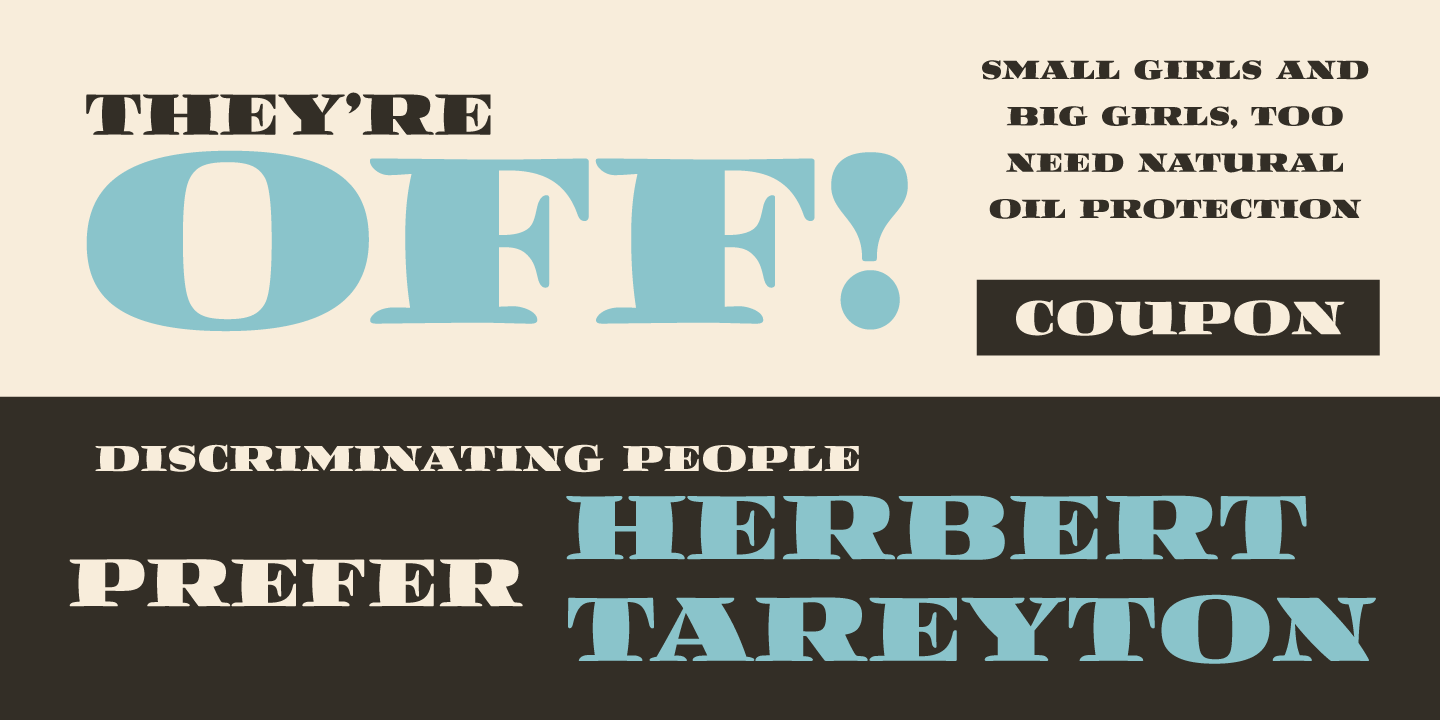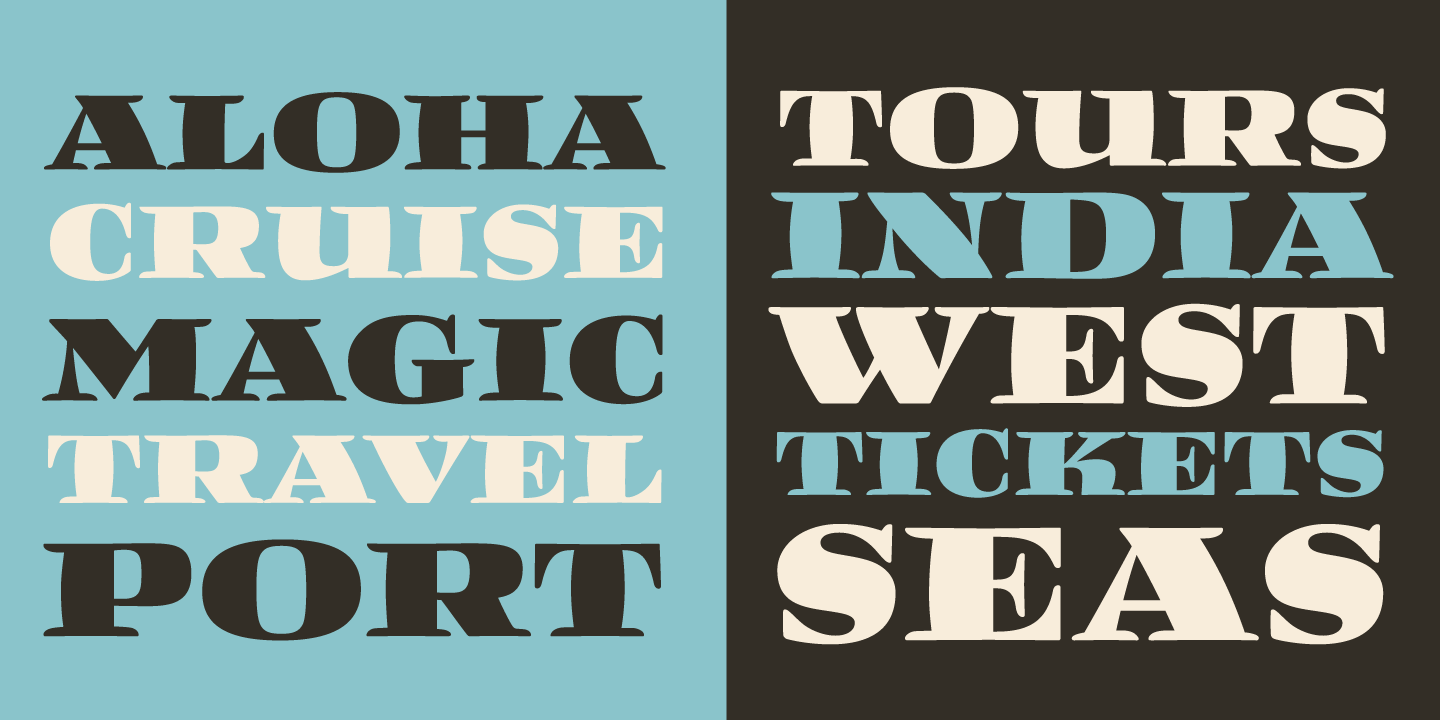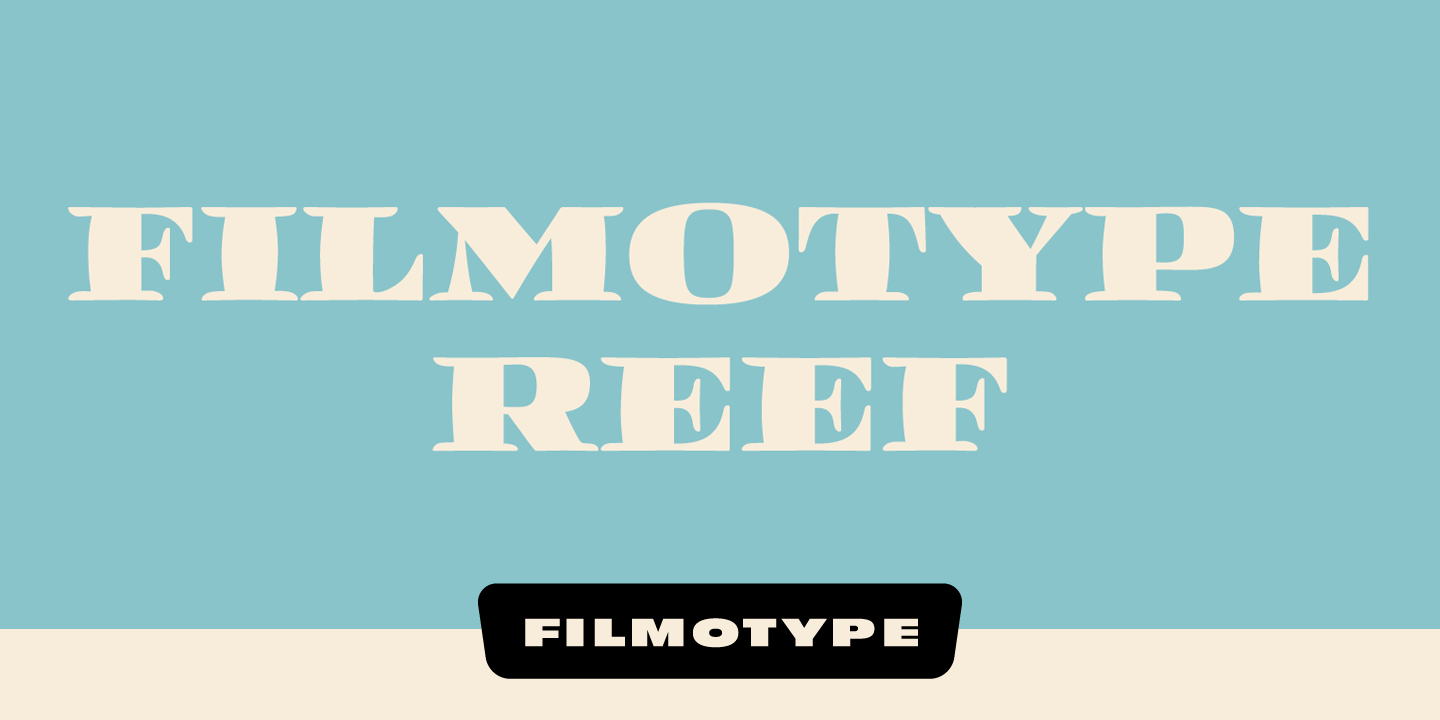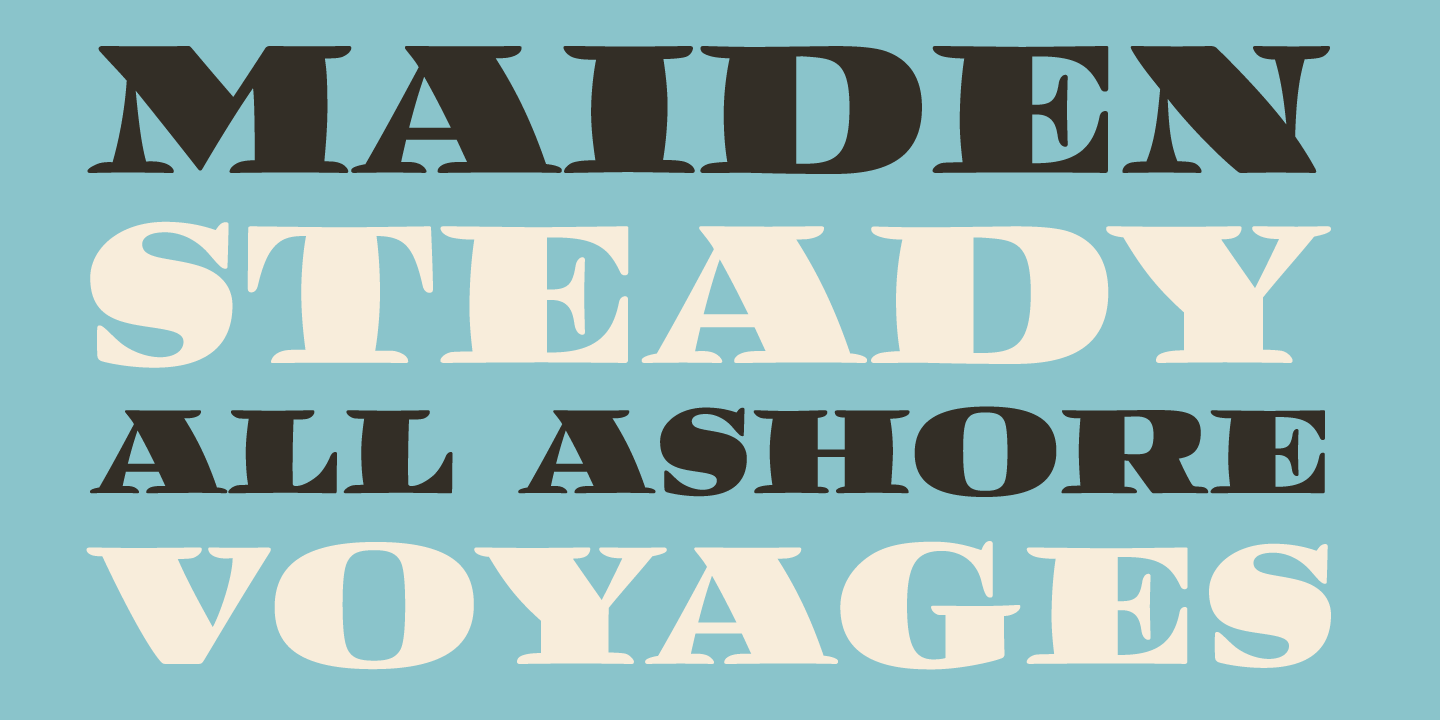
Filmotype Reef
About Filmotype Reef
Filmotype Reef was among the companies earliest original Serif styles introduced by Filmotype in the early-to-mid 1950s. This wonderful wide serif style owes its character to its calligraphic roots. Filmotype Horizon was developed from the original font…